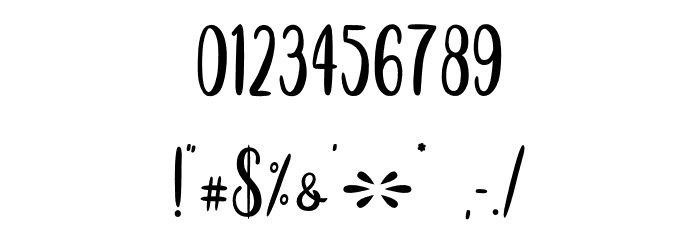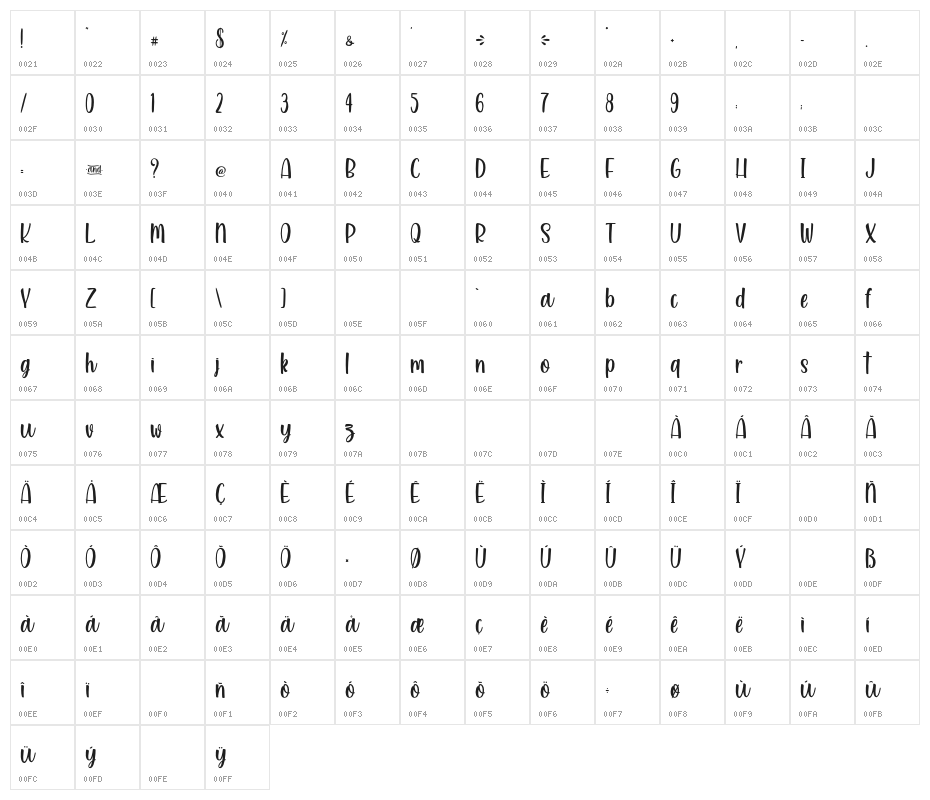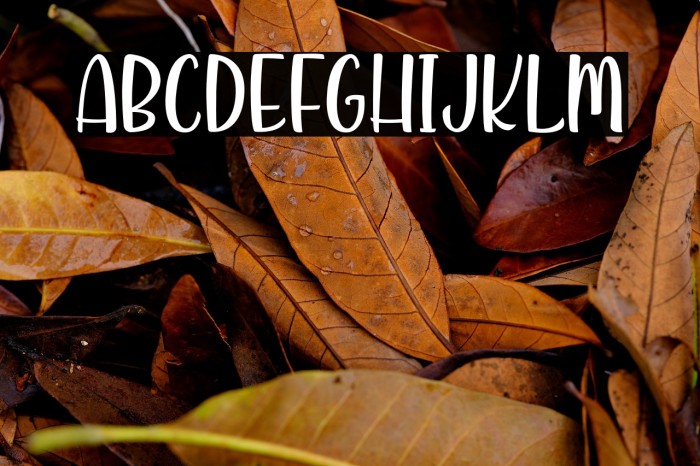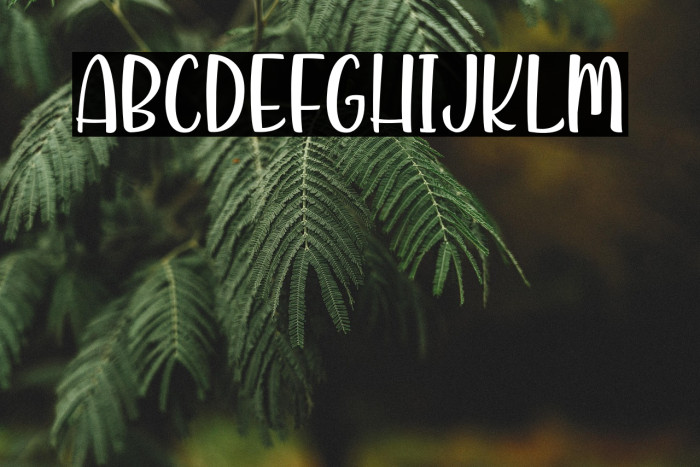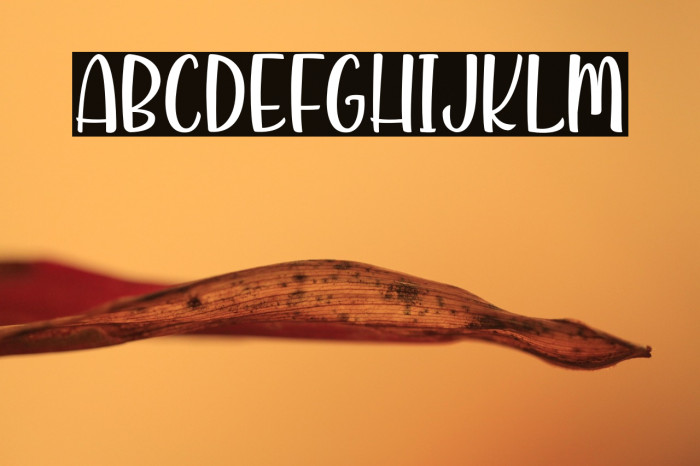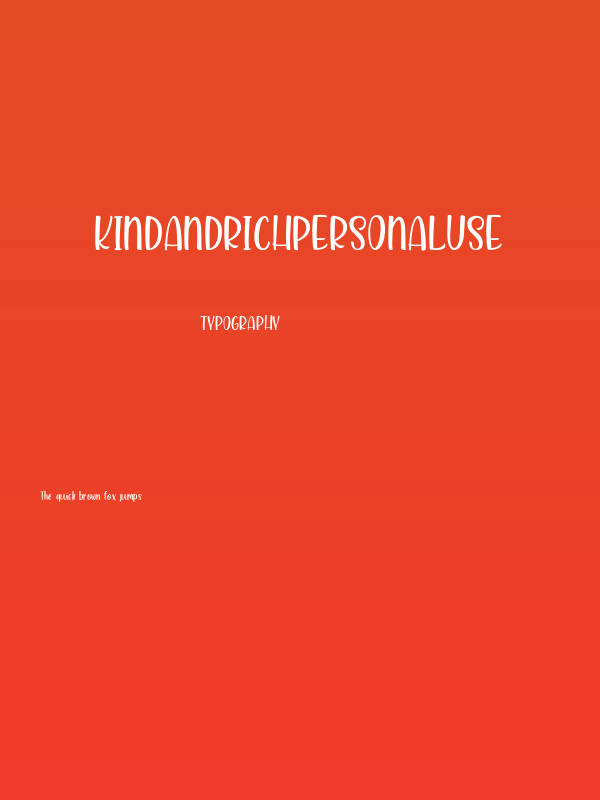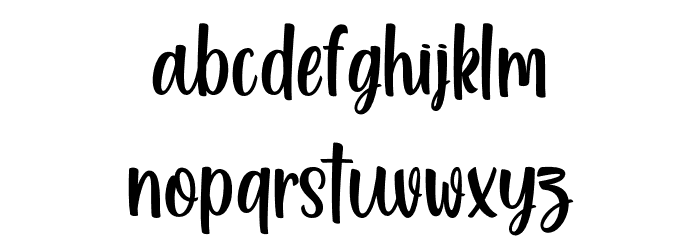
KindandRichPersonalUse Font
KindandRichPersonalUse Description
This font features a playful and casual handwritten style, characterized by its smooth curves and slightly irregular strokes that give it a friendly and approachable appearance. The uppercase letters are bold and rounded, while the lowercase letters maintain a consistent flow with a touch of whimsy. The numbers are clear and easy to read, matching the overall style of the alphabet. Special characters are designed to complement the letters, maintaining the same playful aesthetic. This font is perfect for projects that require a personal touch, such as invitations, greeting cards, or branding materials that aim to convey warmth and friendliness.